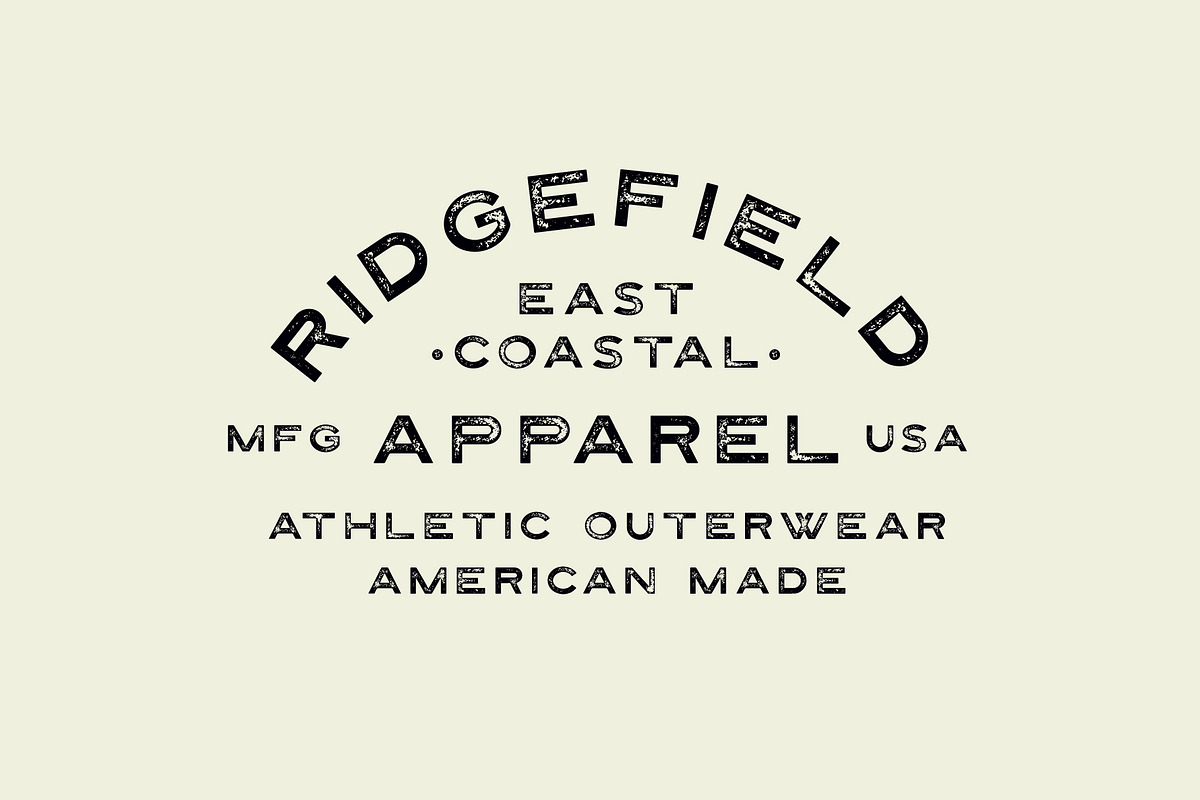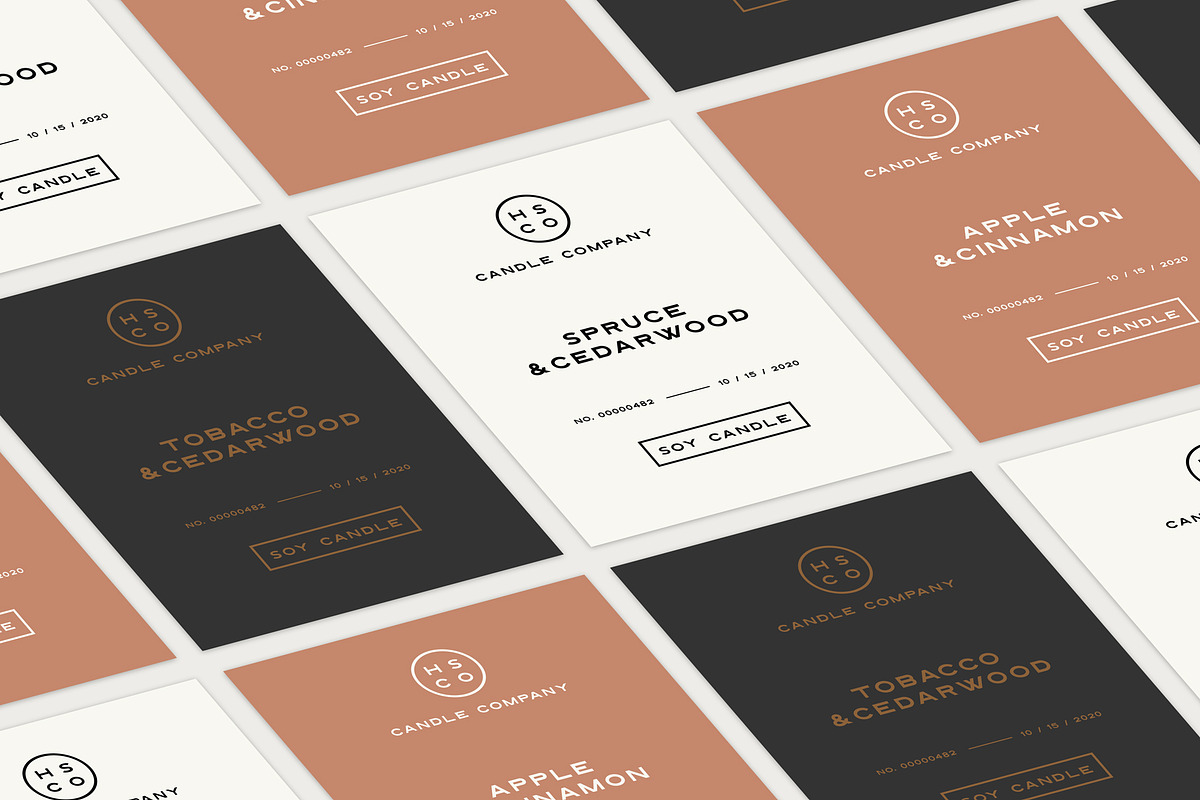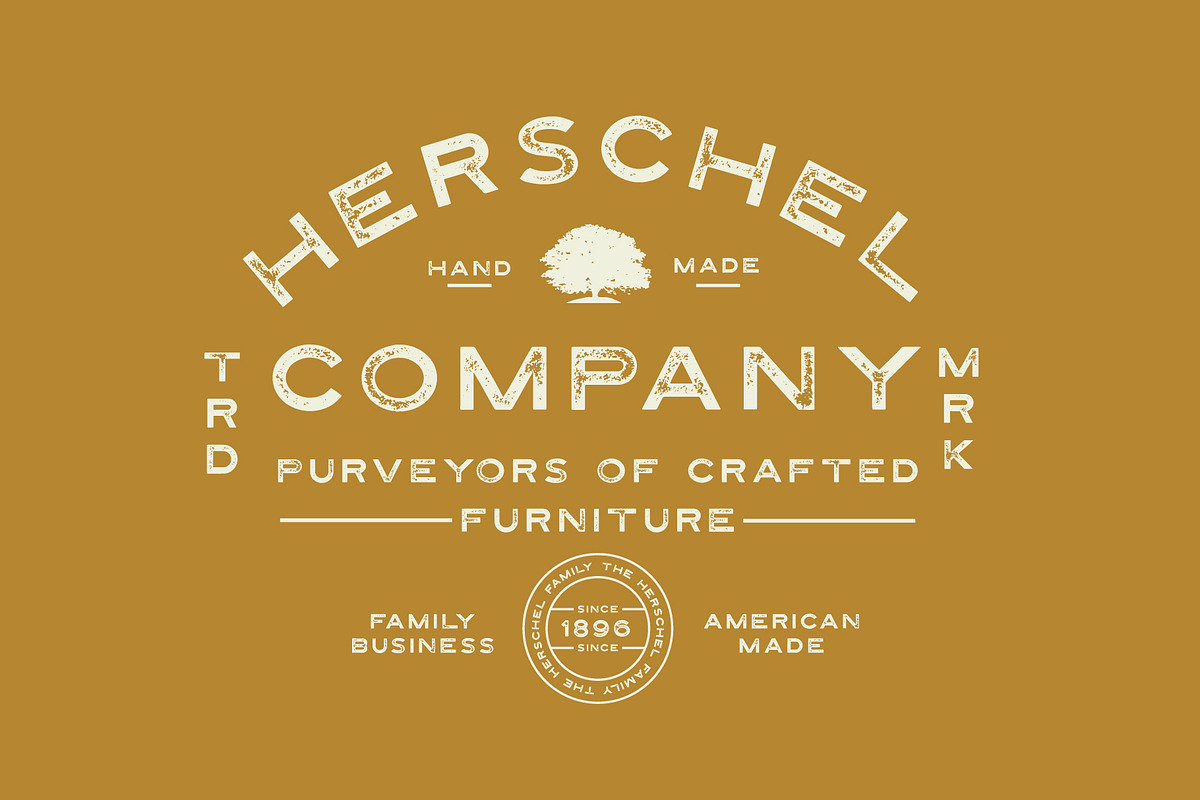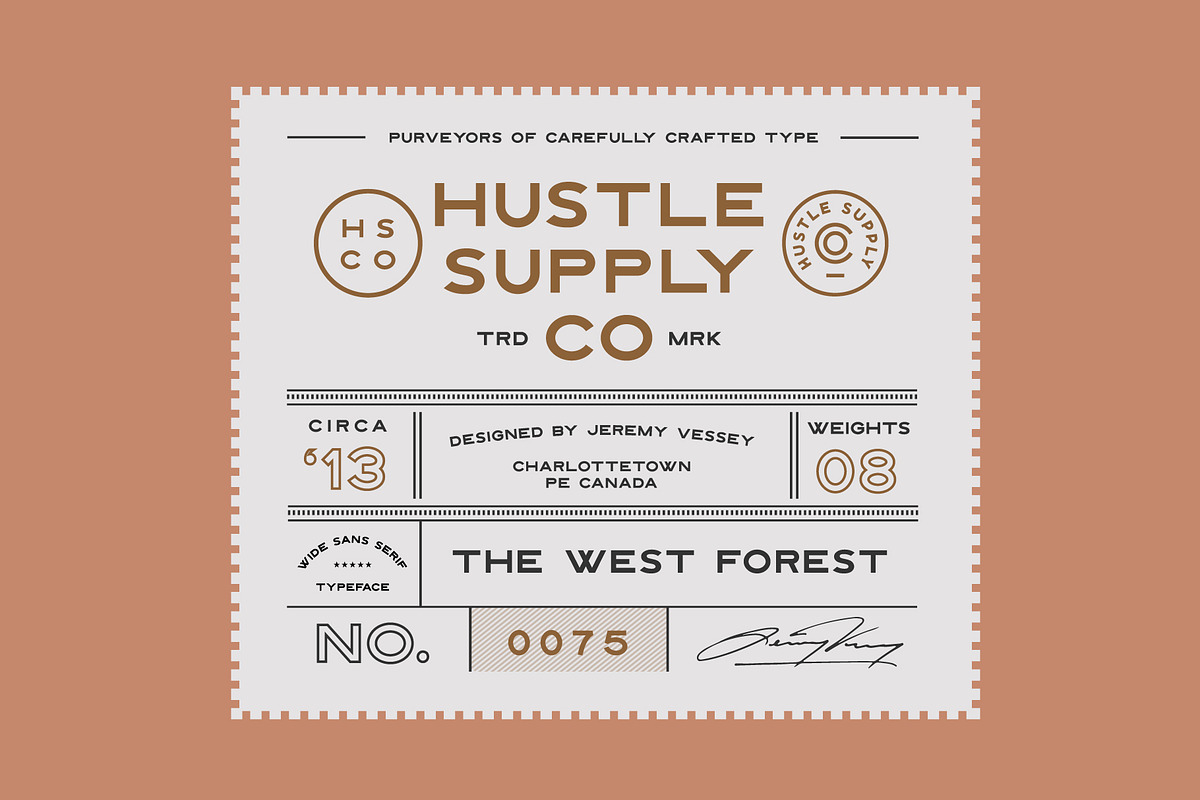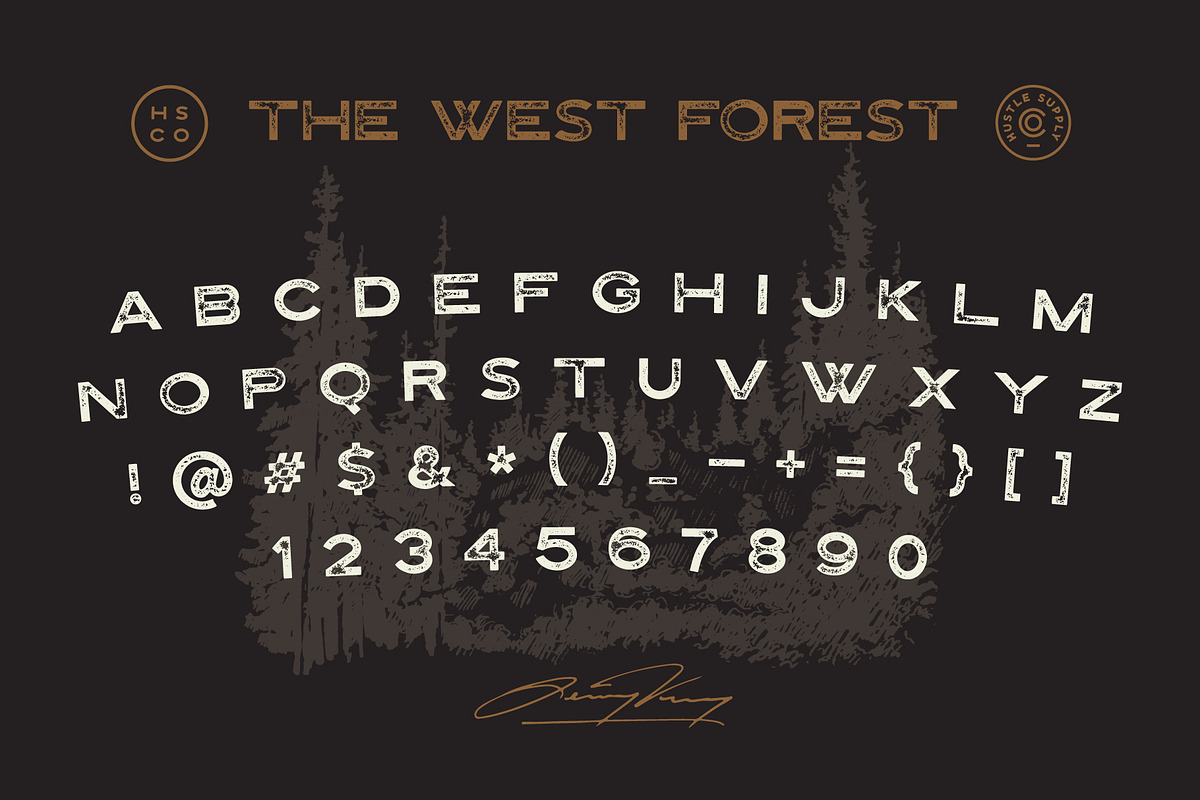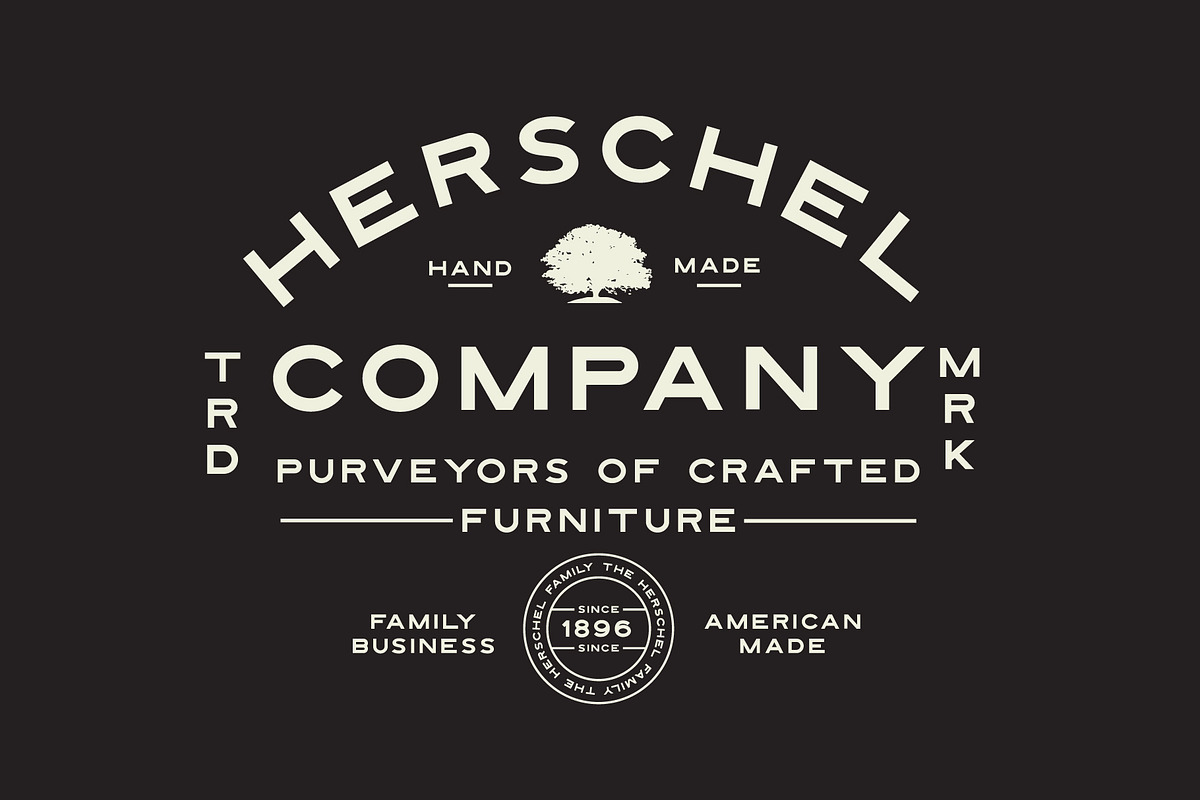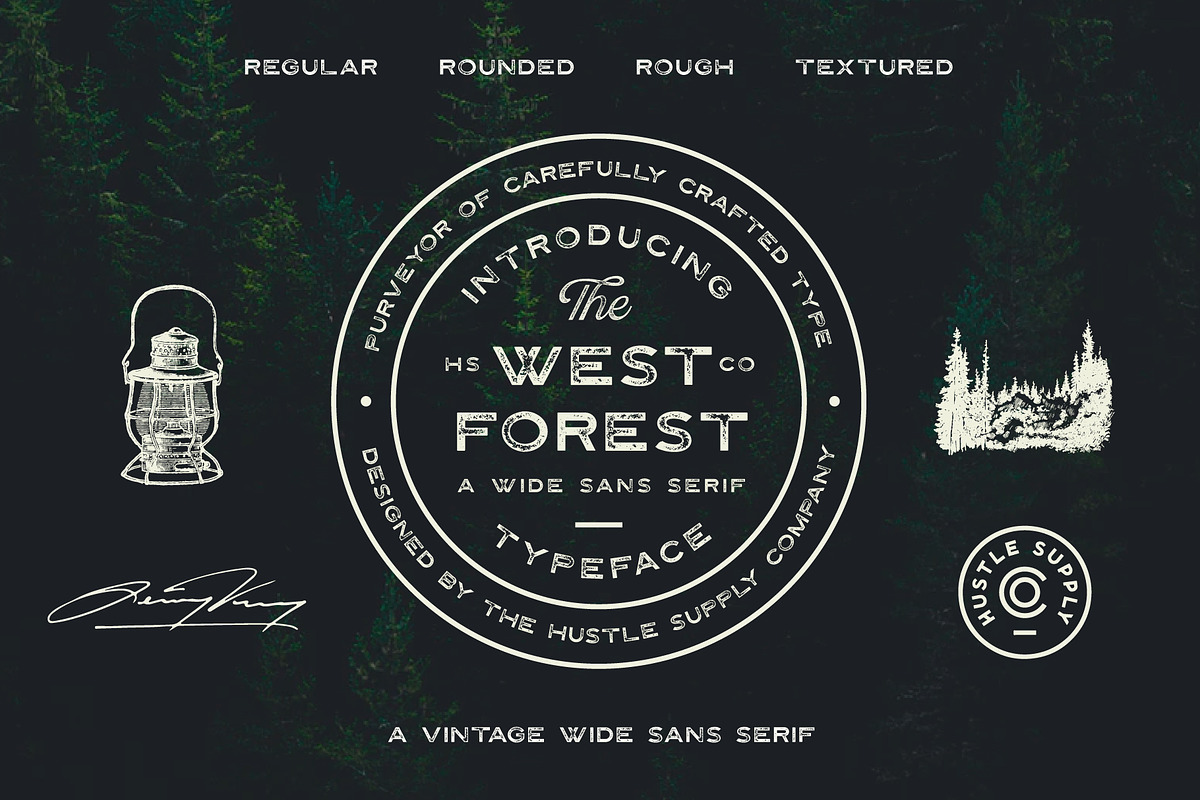
The West Forest
The West Forest is a strong, bold all-caps Wide Sans Serif Typeface. Included are 8 font files ranging from clean to Textured, Rounded & Rough with Oblique options for each. The West Forest is sure to be a work horse typeface that is continually used within many of your projects. This typeface has the potential to fill many different needs for a range of different aesthetics.
- Regular, Textured, Rough & Rounded Versions
- Oblique (Italic) Versions of each